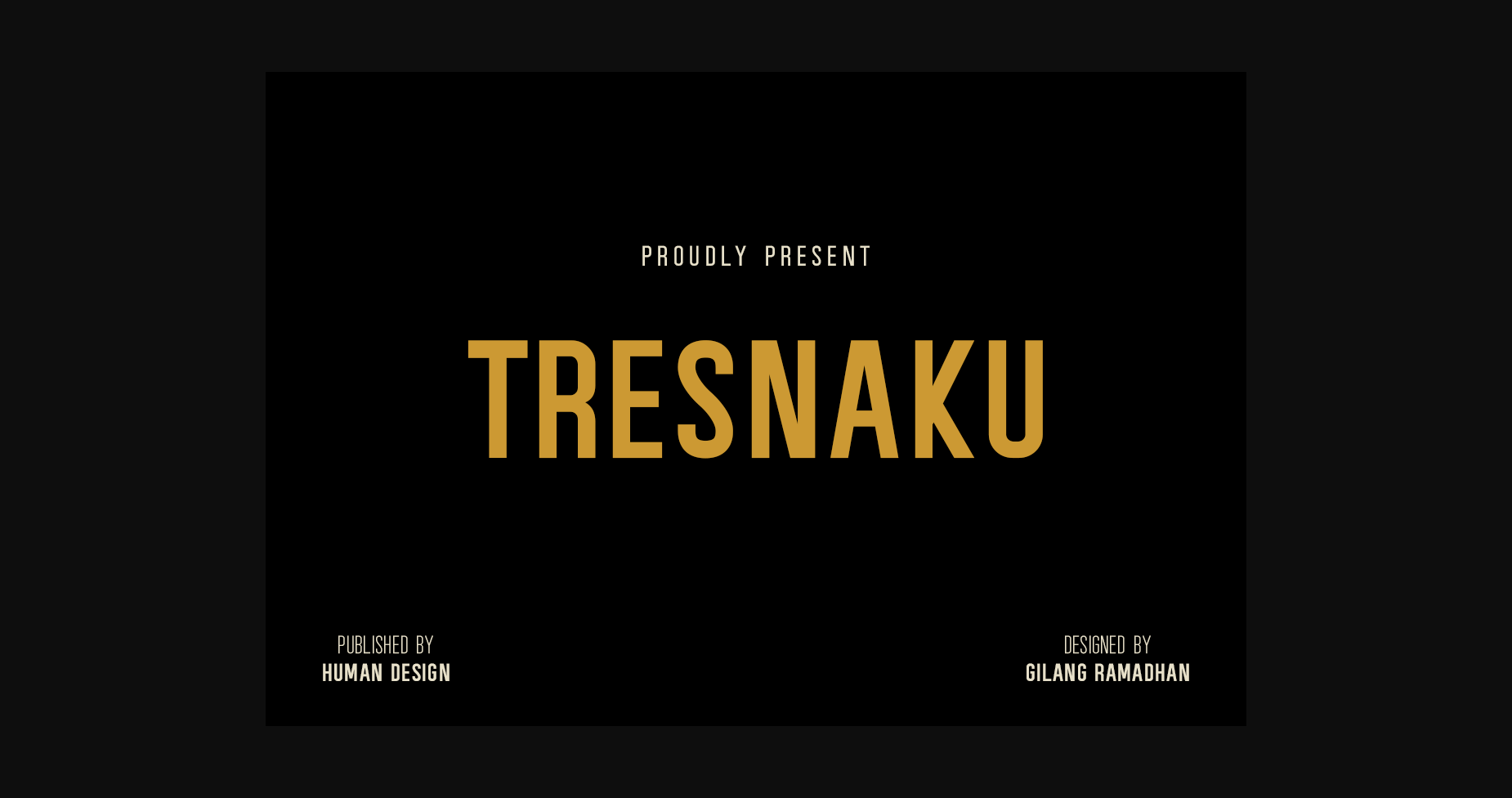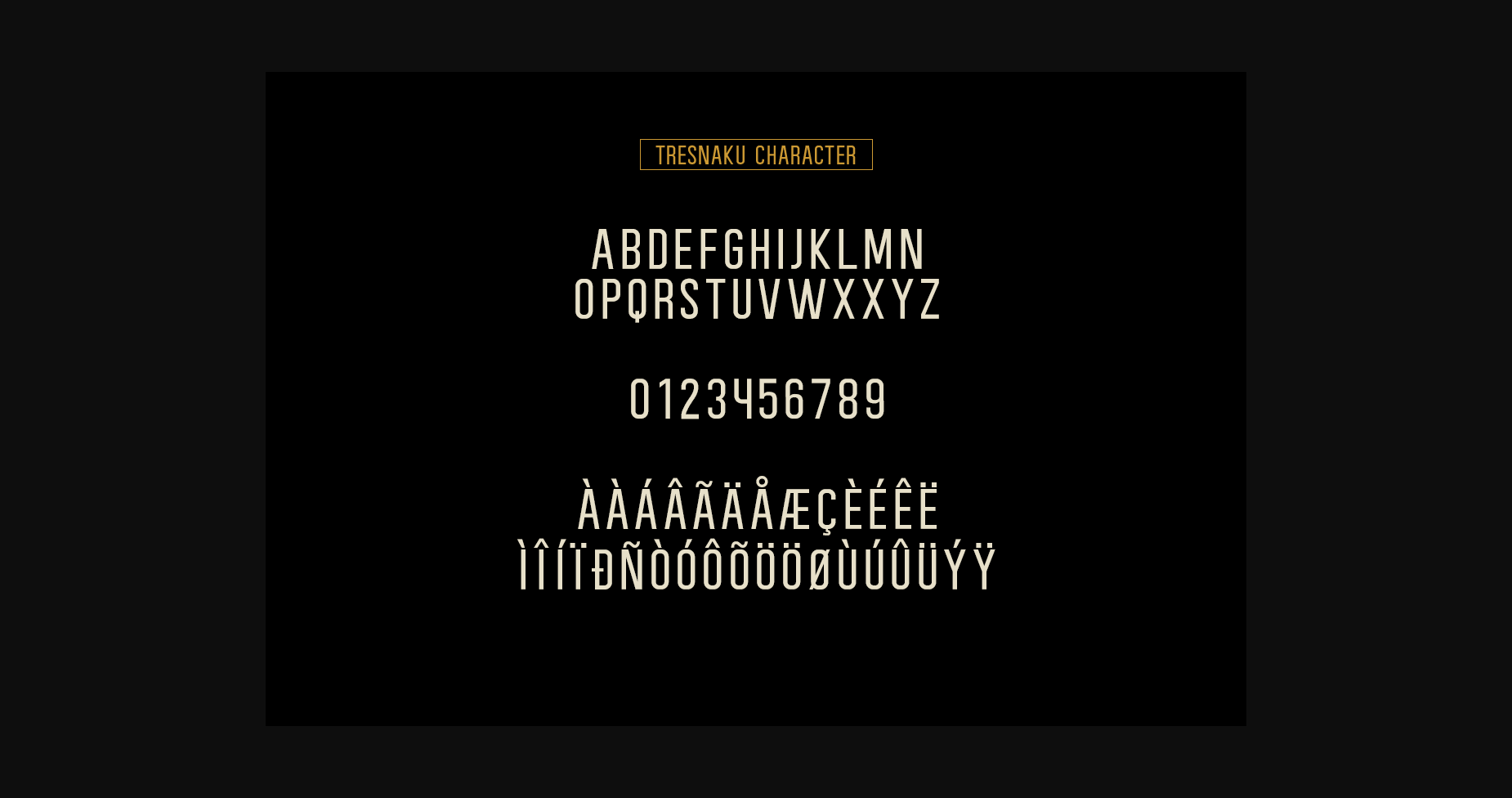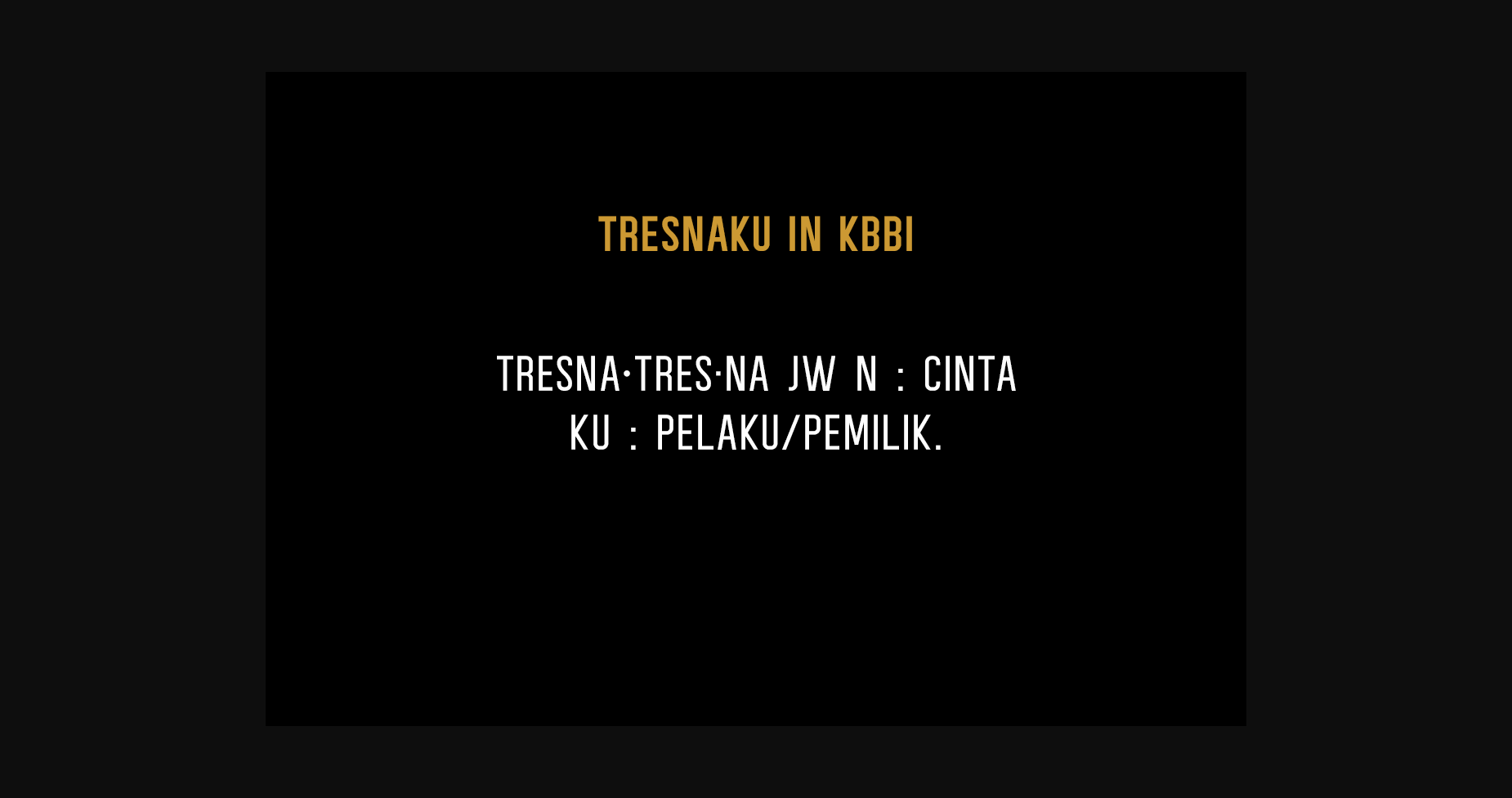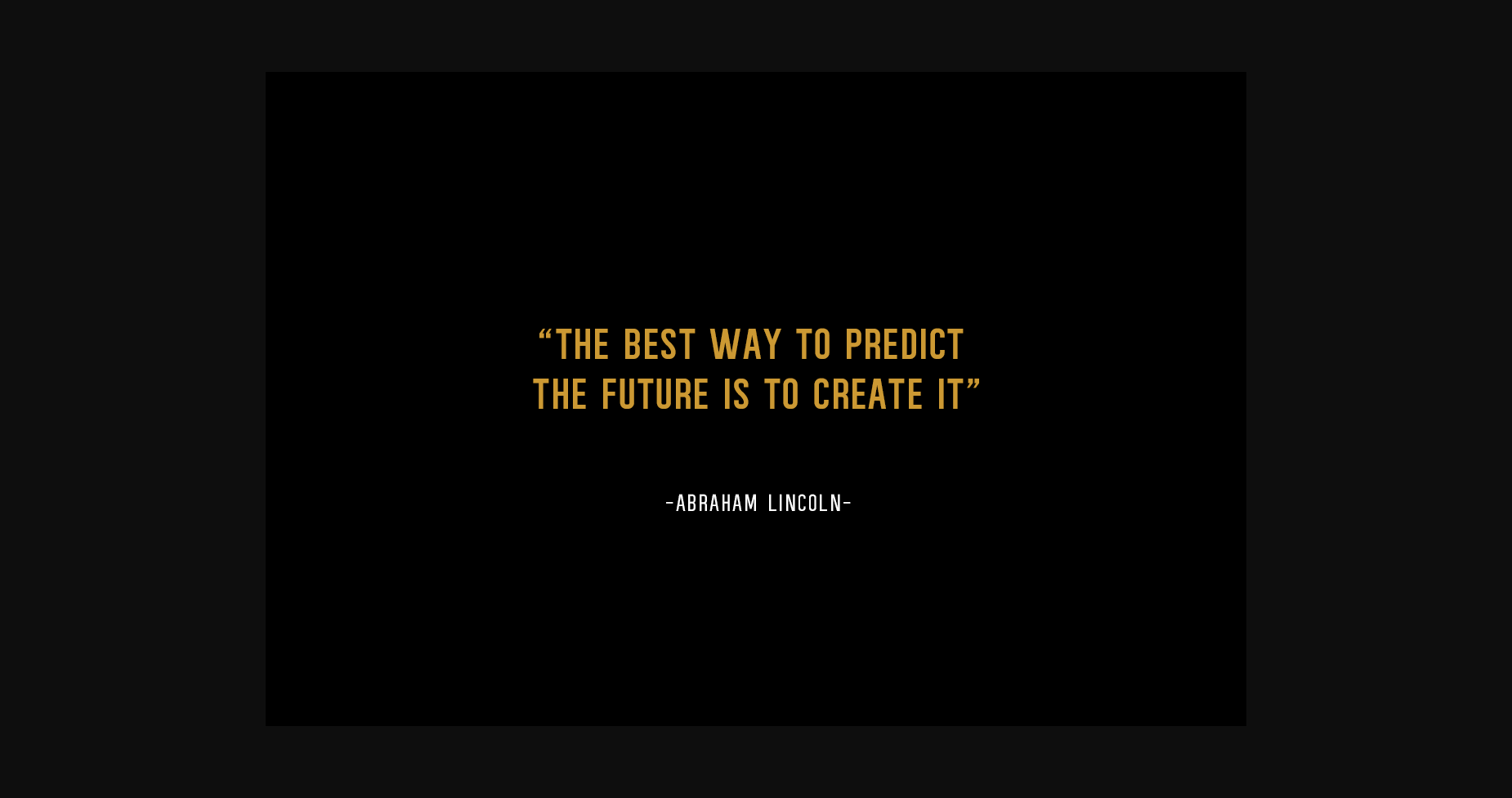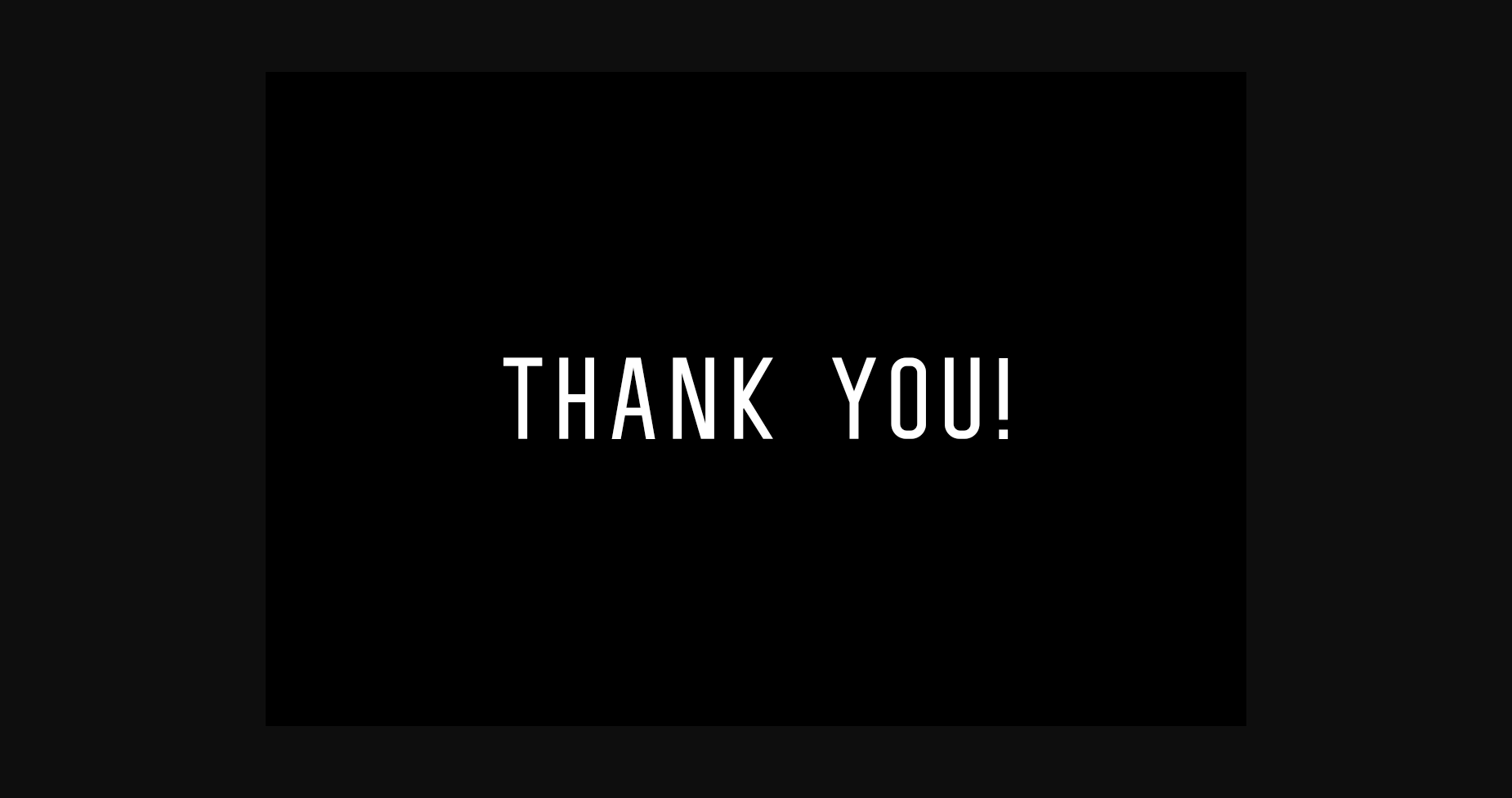
HomeSans Serif FontsTresnaku Font Sans Serif Fonts Tresnaku Font FacebookXPinterestWhatsApp 1 of 7 ... Tresnaku Font Poster 2... Tresnaku Font Poster 3... Tresnaku Font Poster 4... Tresnaku Font Poster 5... Tresnaku Font Poster 6... Tresnaku Font Poster 7... About Tresnaku Font Tresnaku is a minimal and neat sans serif font. It’s a great match to various sets of projects, so add it to your creative ideas and notice how it makes them stand out! DOWNLOAD NOW People also explored Story Tales Archi Light Font Yhulliantti Font Super Love Christmas Font Fany Harlley – Handwritten Font Lily Melody Font Yesie Script Font Humble Font Manoek Hideung Font 287 0 TagsTresnaku Font Previous articleSpace Power FontNext articleCandice Font LEAVE A REPLY Cancel reply Comment: Please enter your comment! Name:* Please enter your name here Email:* You have entered an incorrect email address! Please enter your email address here Website: Save my name, email, and website in this browser for the next time I comment. Personal Use Free Evensong Hollow Personal Use Free Read more about this font Yukarimobile Personal Use Free Read more about this font Fontmageddon Personal Use Free Read more about this font Browie Personal Use Free Read more about this font BLOG Free vs Paid Fonts: Why Investing in Premium Fonts Is Worth It Free vs Paid Fonts: Why Premium Fonts Are Worth It in 2025 The debate of free vs paid fonts continues in the design world. While... Exploring Font Trends Free Fonts Risk: Why Free Fonts Can Be Dangerous for Designers How to Install and Use Fonts on Windows, macOS, and Web Projects